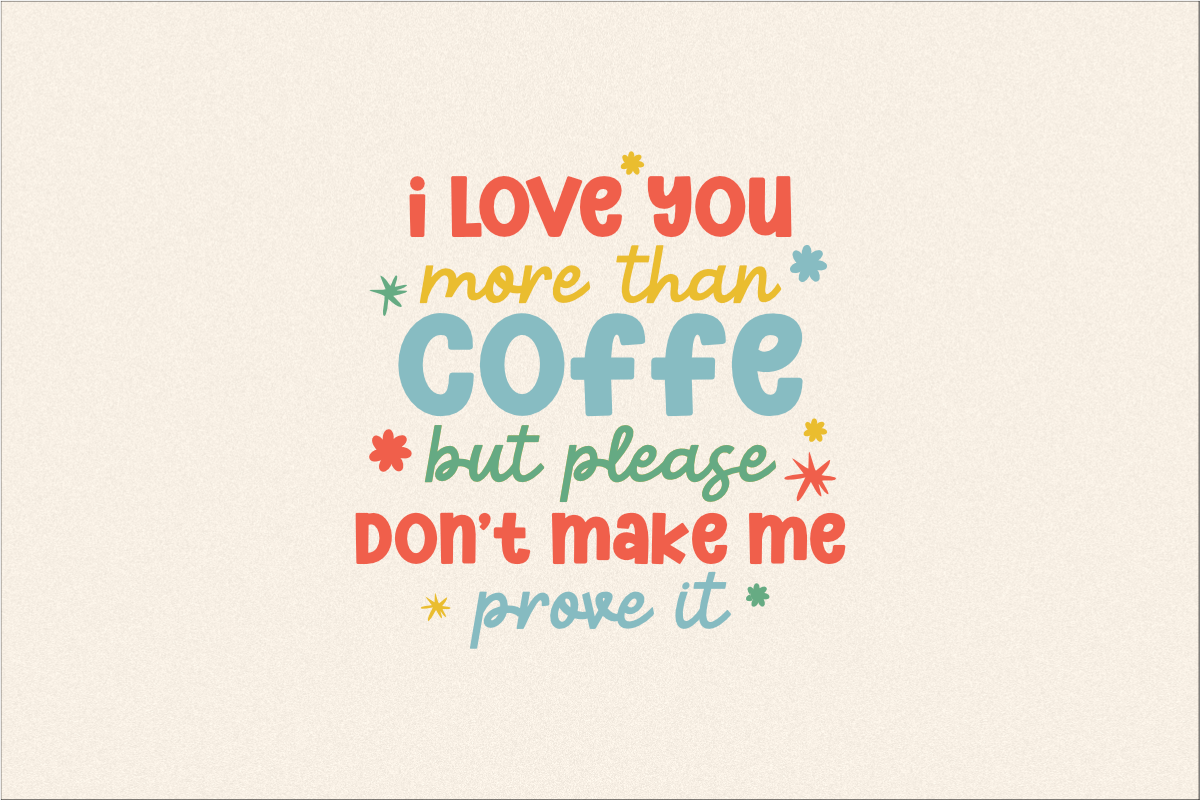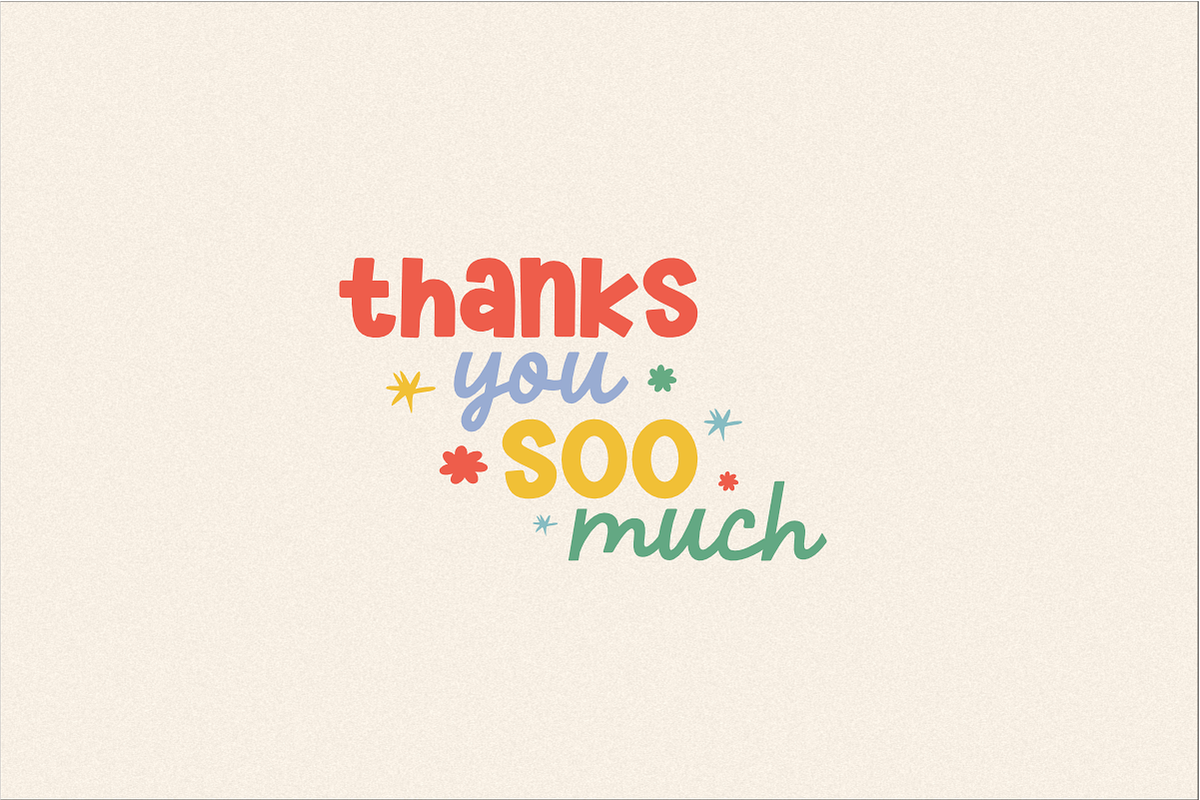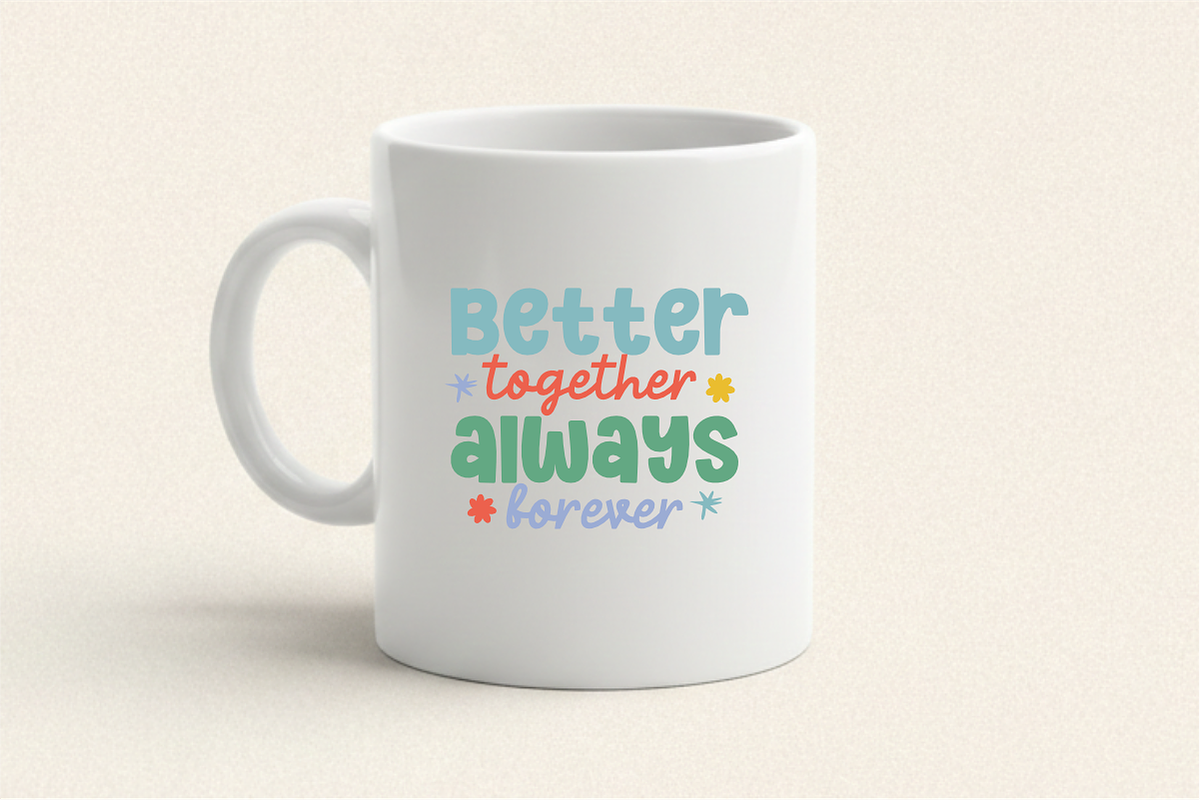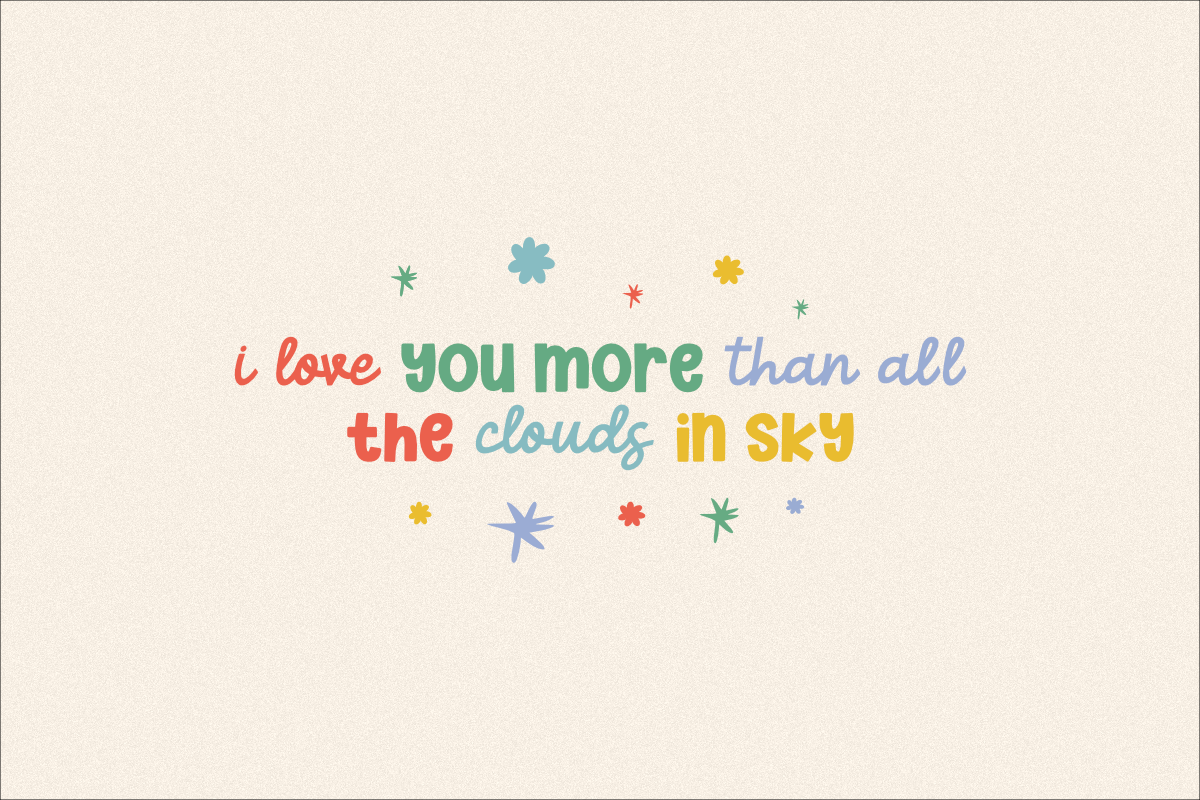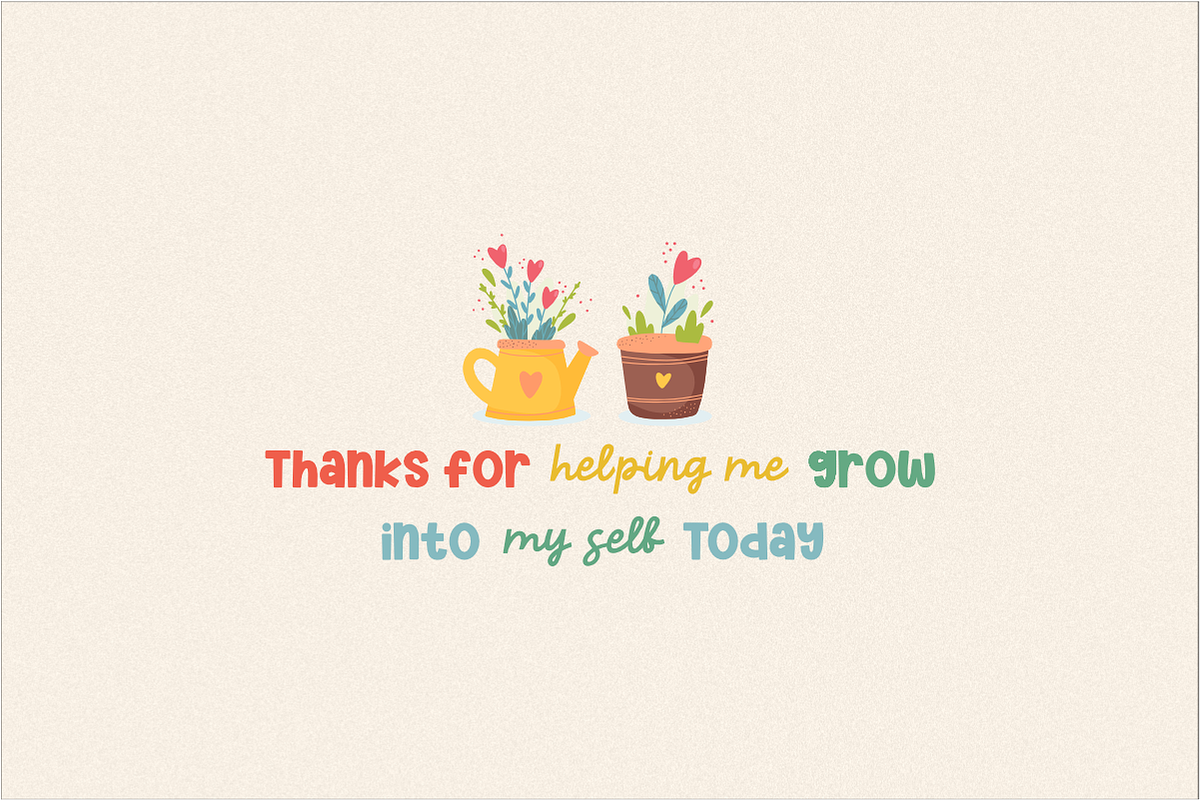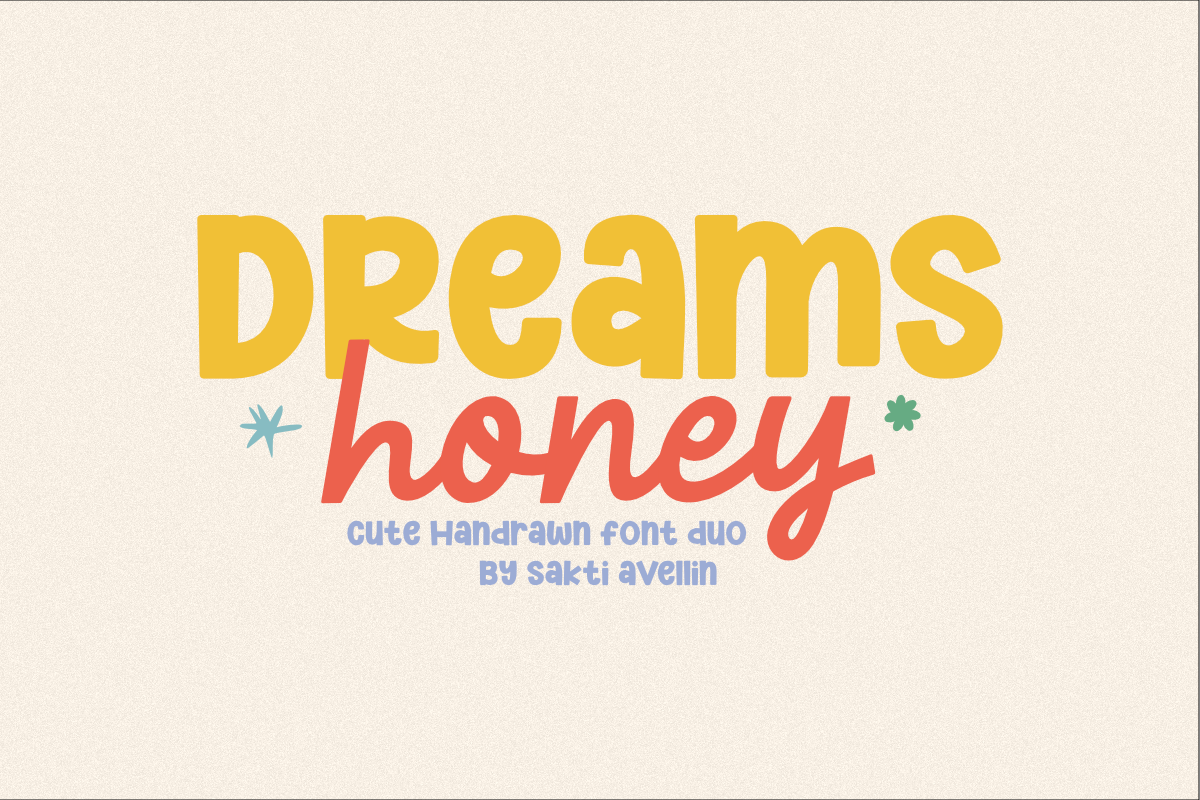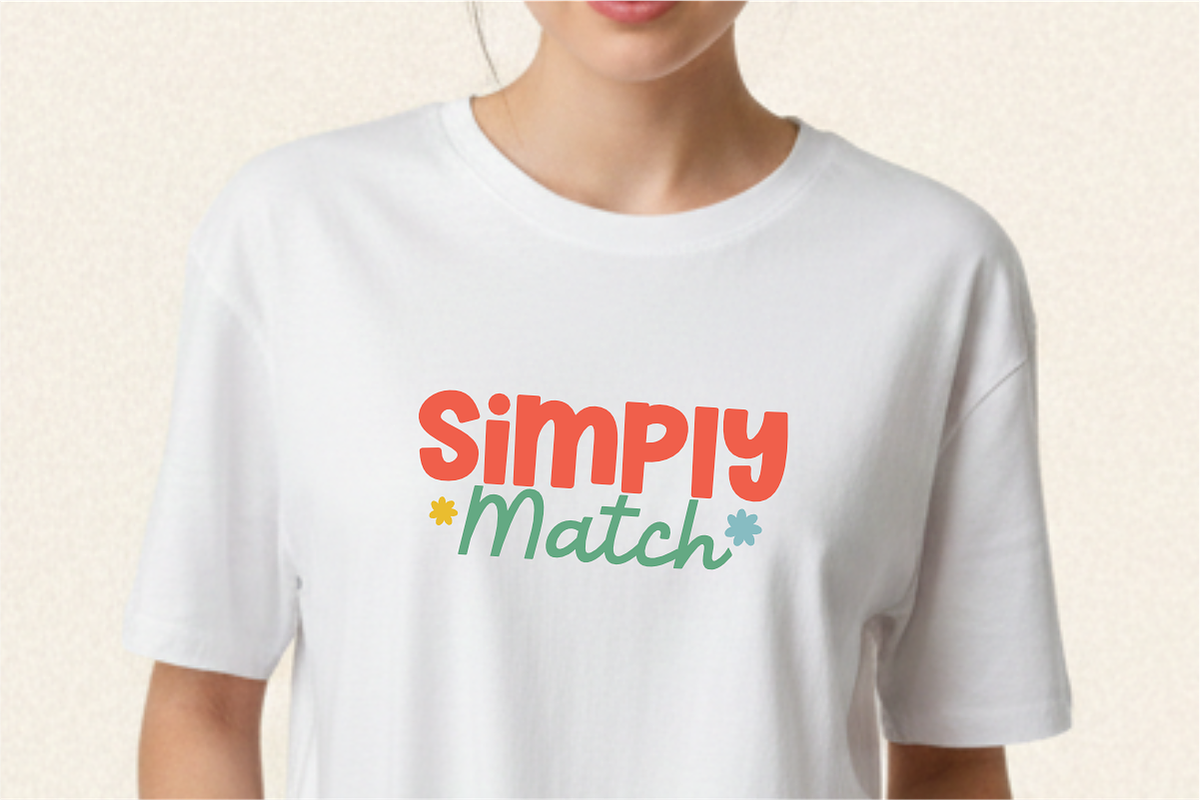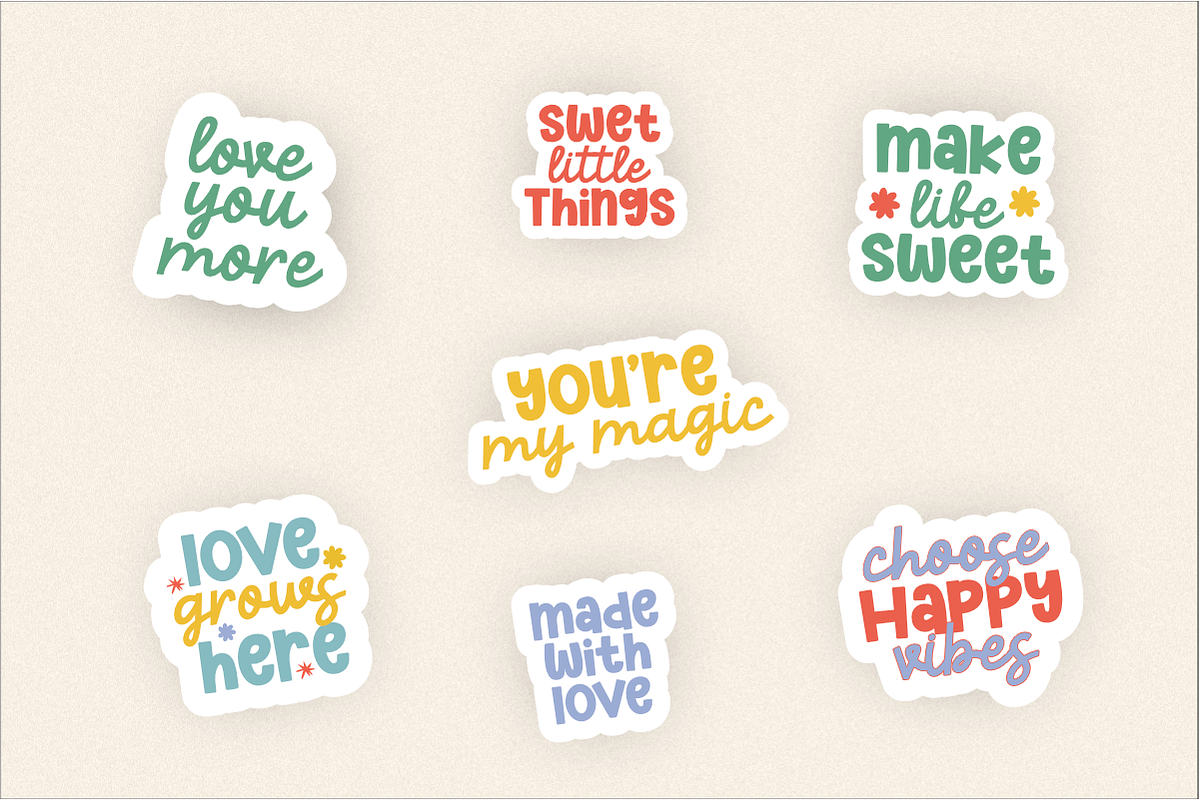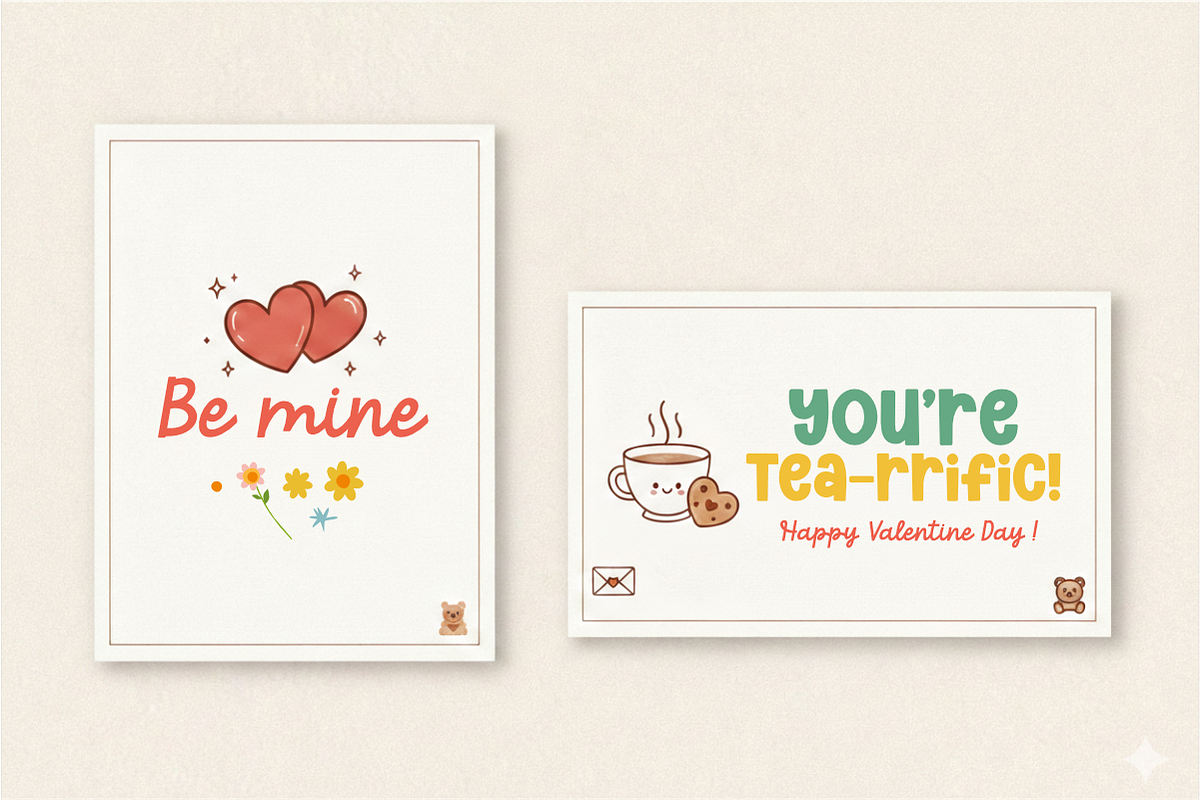
Dreams Honey - Handwritten Font Duo
Dreams Honey is a delightful and cute handdrawn font duo designed to bring a playful and organic touch to your creative projects. This versatile typeface pairing features a bold, rounded display style for "Dreams" and a charming, fluid script for "honey", making it an ideal choice for kids' branding, nursery decor, playful logos, and whimsical greeting cards. Its handcrafted aesthetic and friendly letterforms ensure your designs feel warm and personal. Whether you are creating stickers, summer apparel, or sweet social media graphics, Dreams Honey offers a perfect balance of fun and creativity for any modern design.